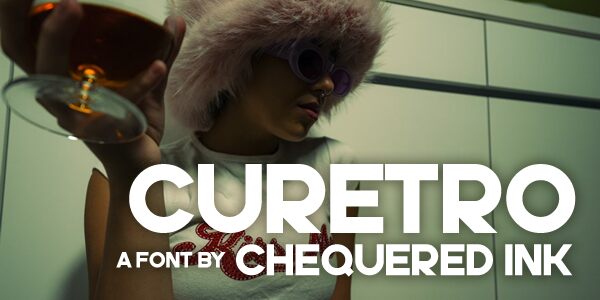
Curetro
Curetro emerges as a bold statement in the realm of sans serif fonts, with its robust presence and clean lines crafted by Chequered Ink. Its aesthetic is modern yet carries a nostalgic echo, making it versatile for various design applications. The font's sturdy characters command attention, ideal for headlines that need to stand out or branding that desires a touch of contemporary boldness.
The appeal of Curetro lies in its ability to marry functionality with style—equally at home in print media as it is on digital platforms. Whether used for striking logos, eye-catching posters, or impactful presentations, this font's assertive charm ensures messages are delivered with clarity and confidence.